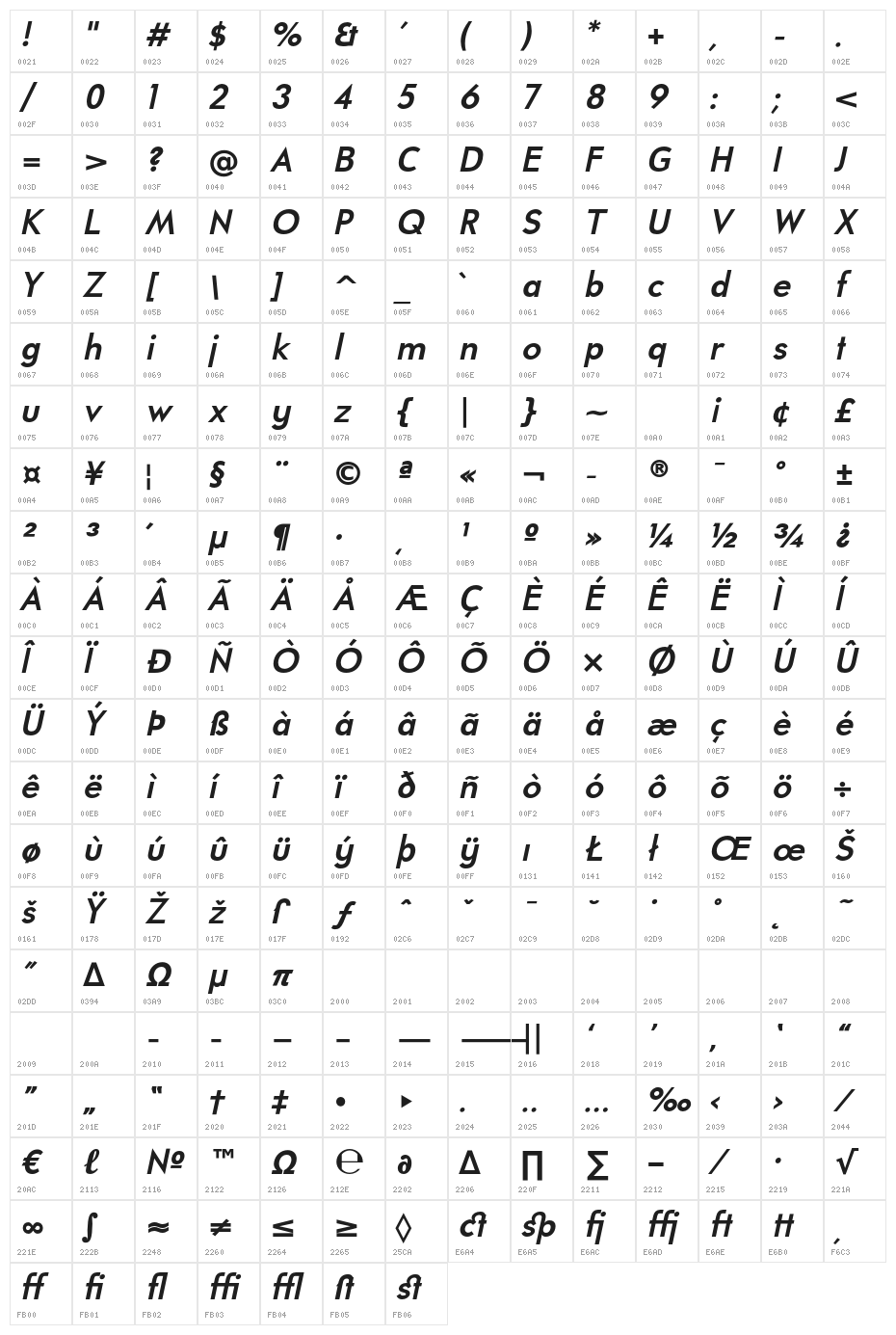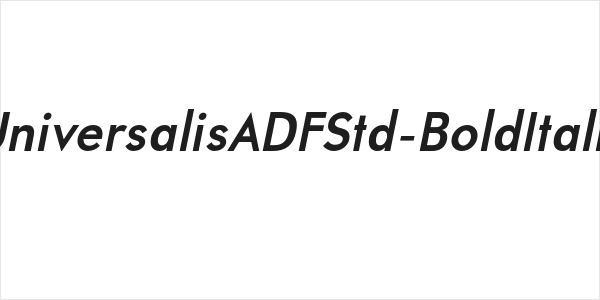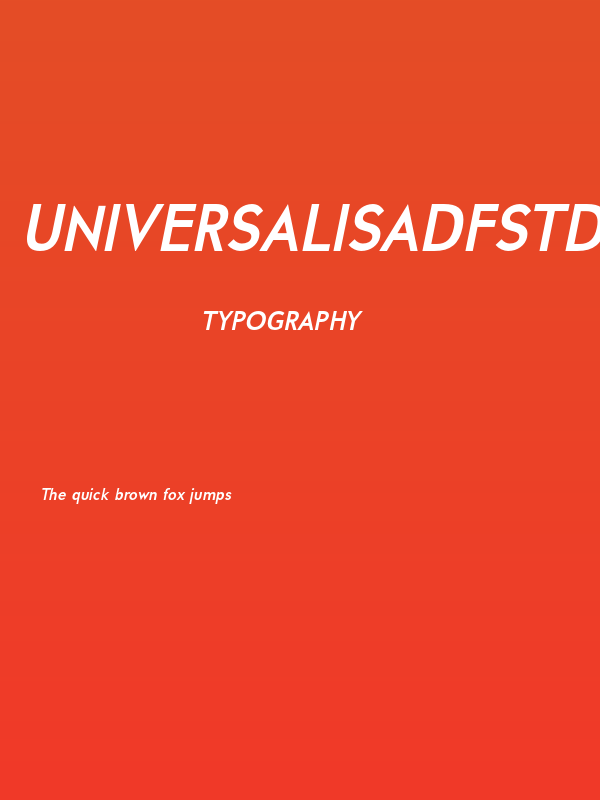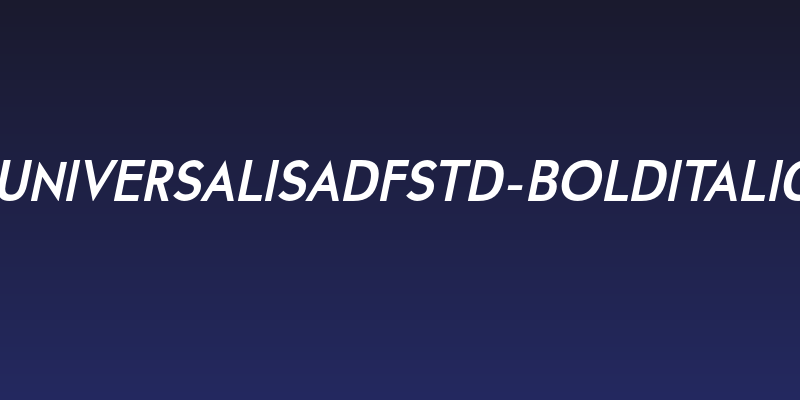
UniversalisADFStd-BoldItalic Font
UniversalisADFStd-BoldItalic Description
This font features a bold and italic style, combining a strong presence with a dynamic slant. The characters are well-defined with a modern aesthetic, making it suitable for impactful text. The uppercase letters are slightly taller than the lowercase, providing a balanced look. The numbers are clear and easy to read, while the special characters maintain consistency with the overall design. The font's boldness ensures visibility, while the italic slant adds a touch of elegance and movement.
| Proposed Projects | Ideal for branding, advertising, and headlines where a strong and modern impression is needed. |